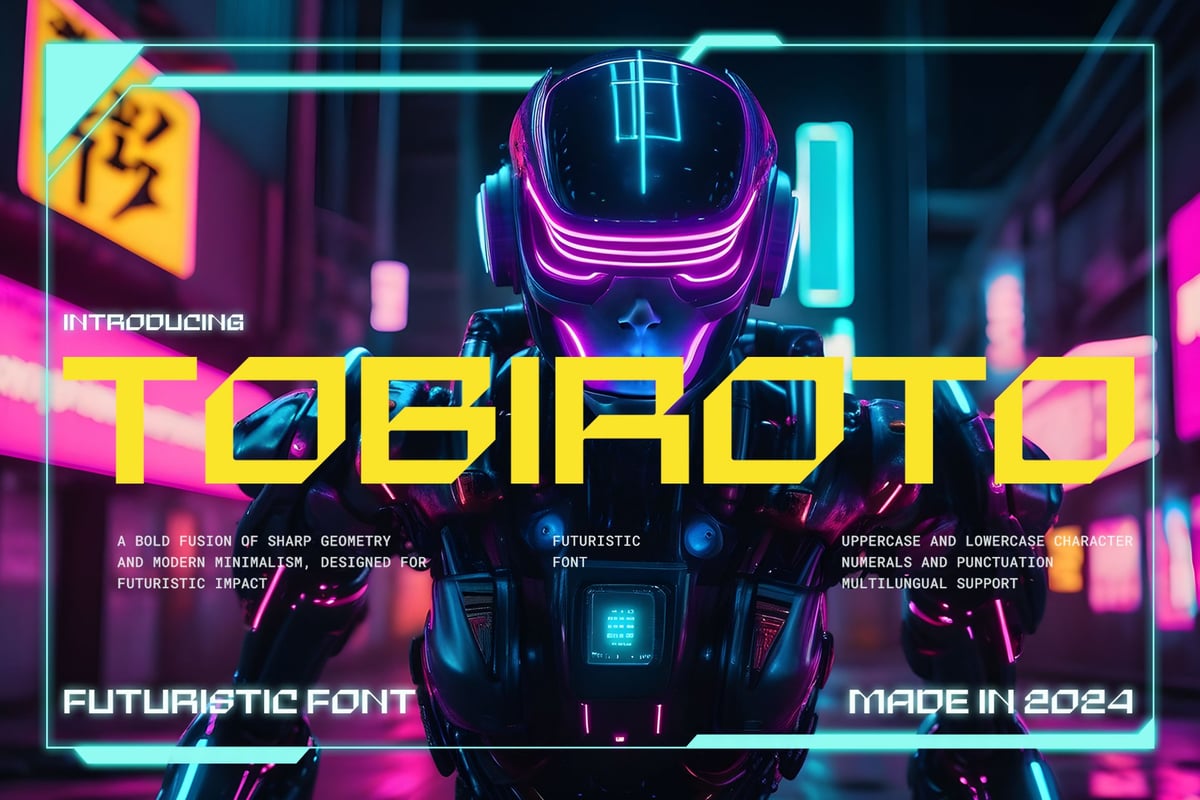
Tobiroto – Futuristic Sci-Fi Display Font
Tobiroto is the go-to display font for sci-fi, gaming, and high-tech creative projects that demand bold impact.
Built on sharp geometric edges and clean lines, this futuristic typeface carries a powerful visual presence without sacrificing legibility. Whether you're designing a game title screen, a tech brand identity, or a cyberpunk-themed poster, Tobiroto delivers the sleek, modern aesthetic that makes your work stand out.
Ideal for use in:
- Game titles and esports branding
- UI and digital interface design
- Sci-fi posters and editorial layouts
- Logos and product packaging
- Websites and futuristic user experiences
- Uppercase and lowercase characters
- Numbers and punctuation
- Multilingual support